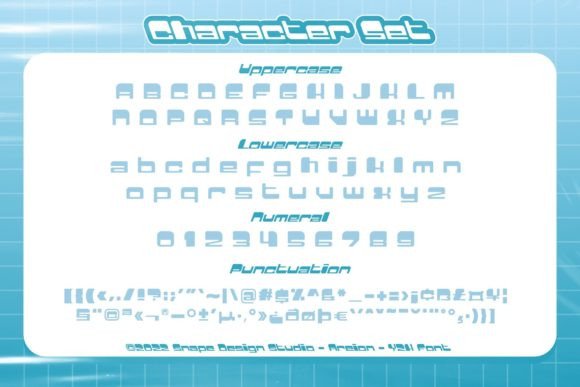
Areion is a unique and futuristic display font. Heavily influenced by Y2K design era through music and pop culture, this typeface is perfect for technology, digital, space/galaxy-themed projects, or anything that needs an innovative touch.
Areion Font